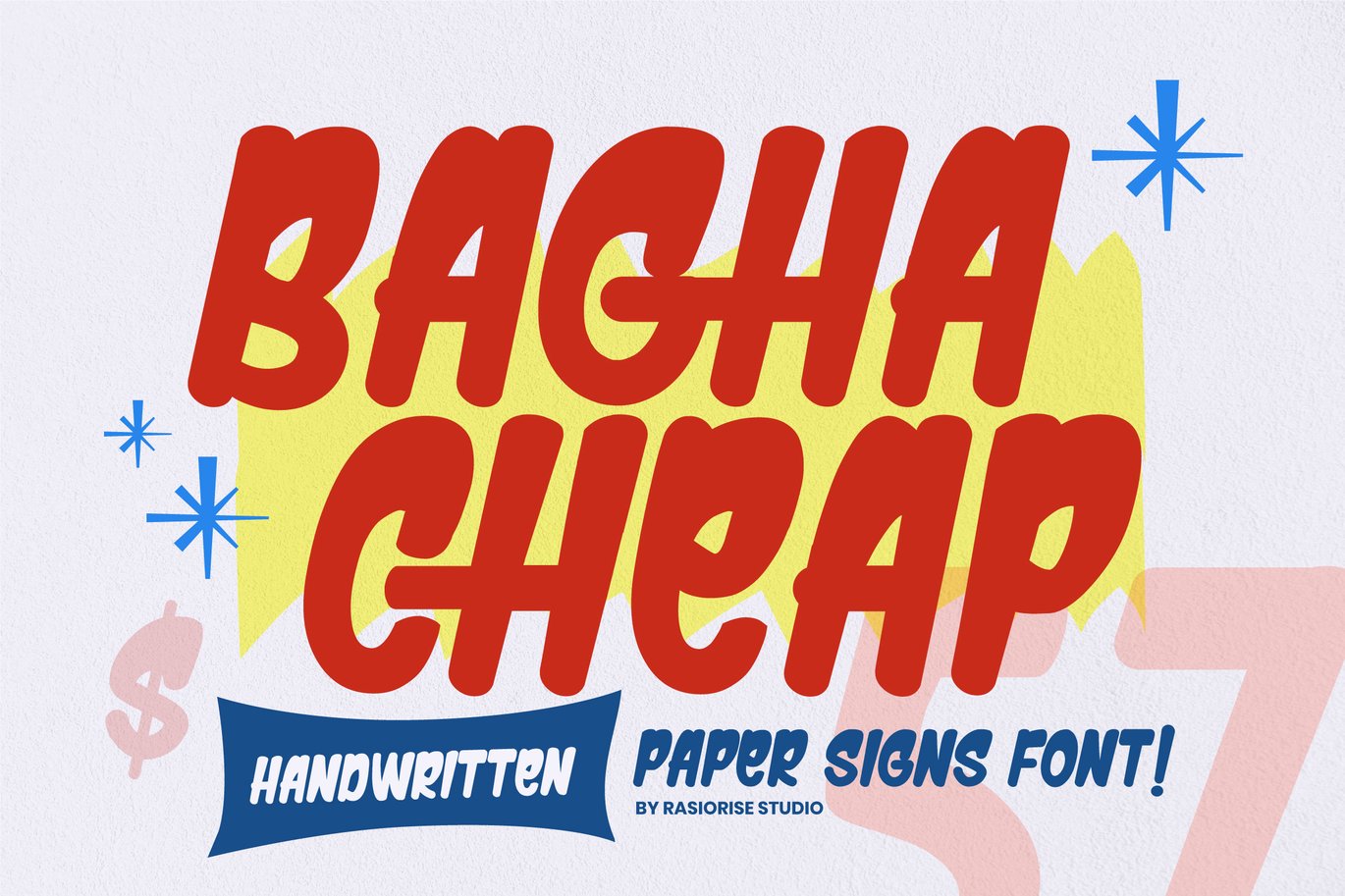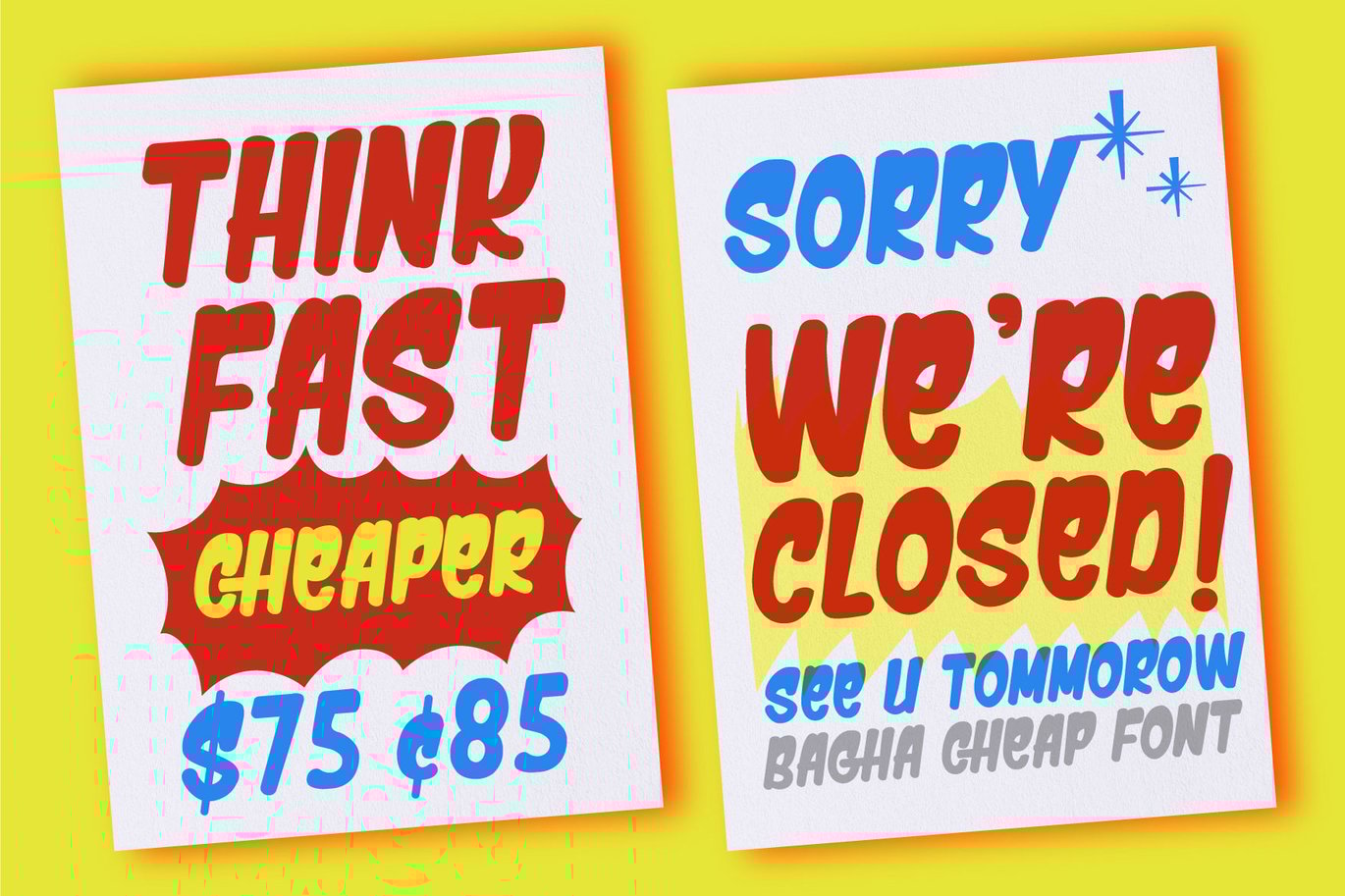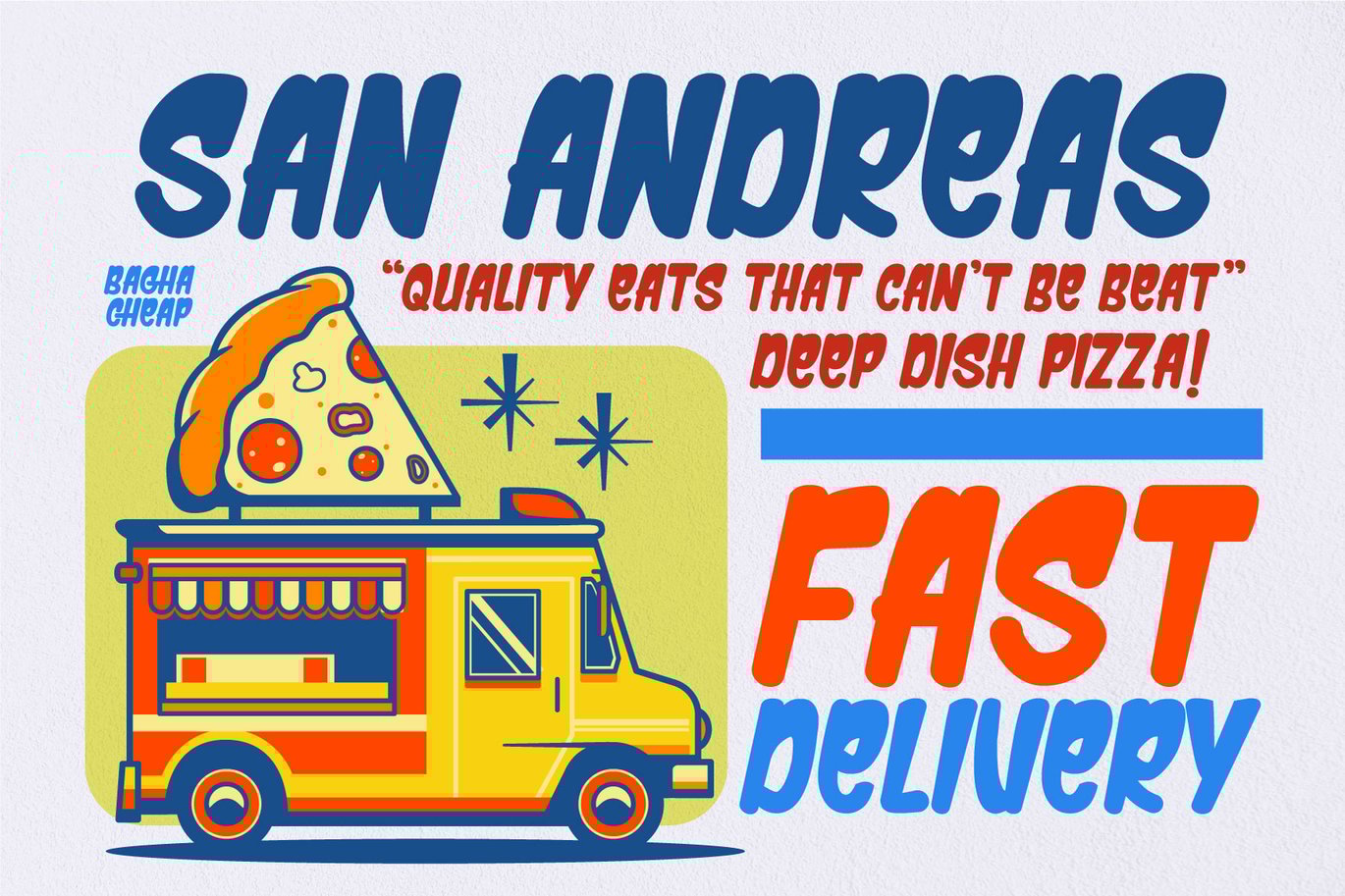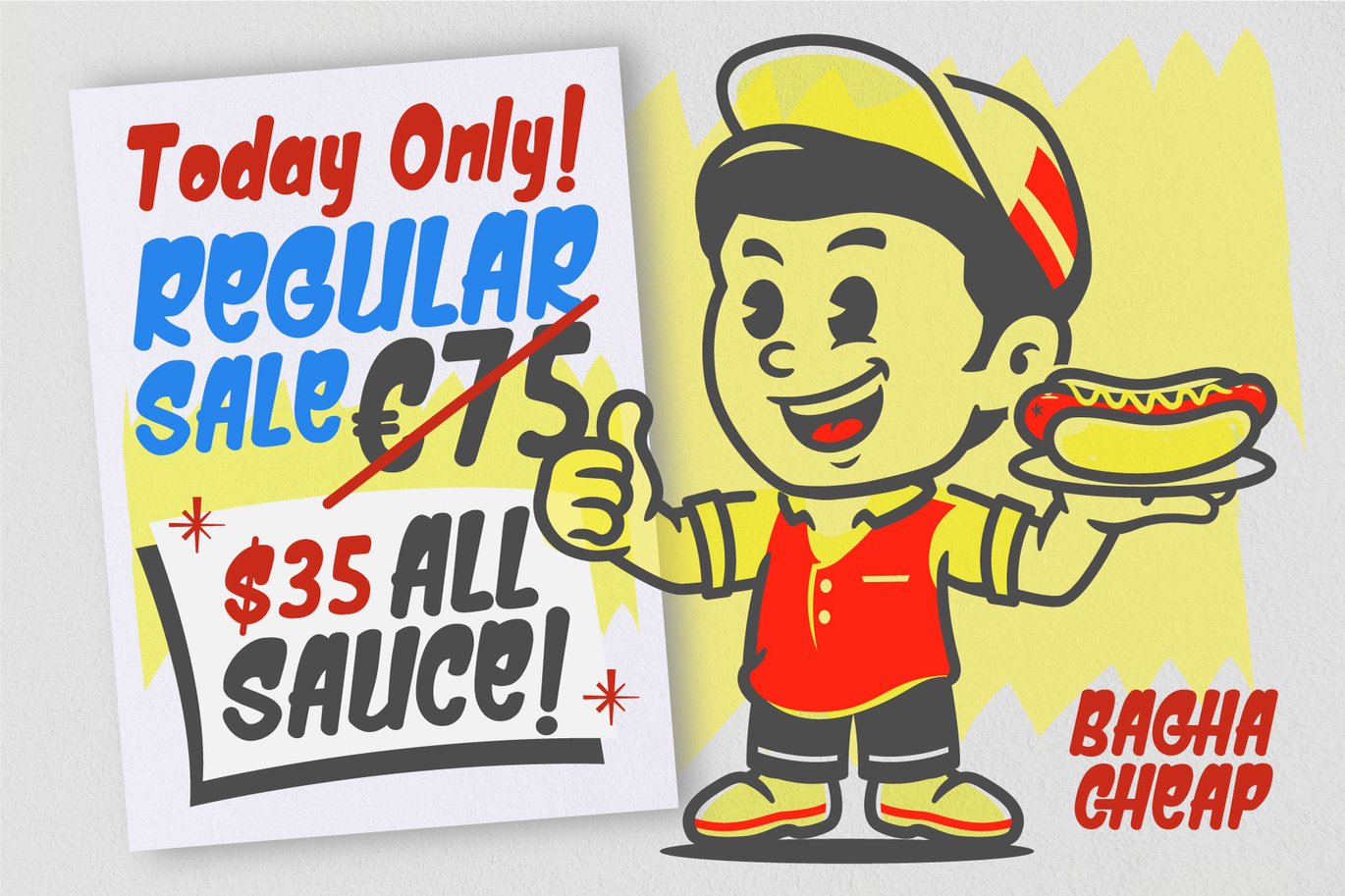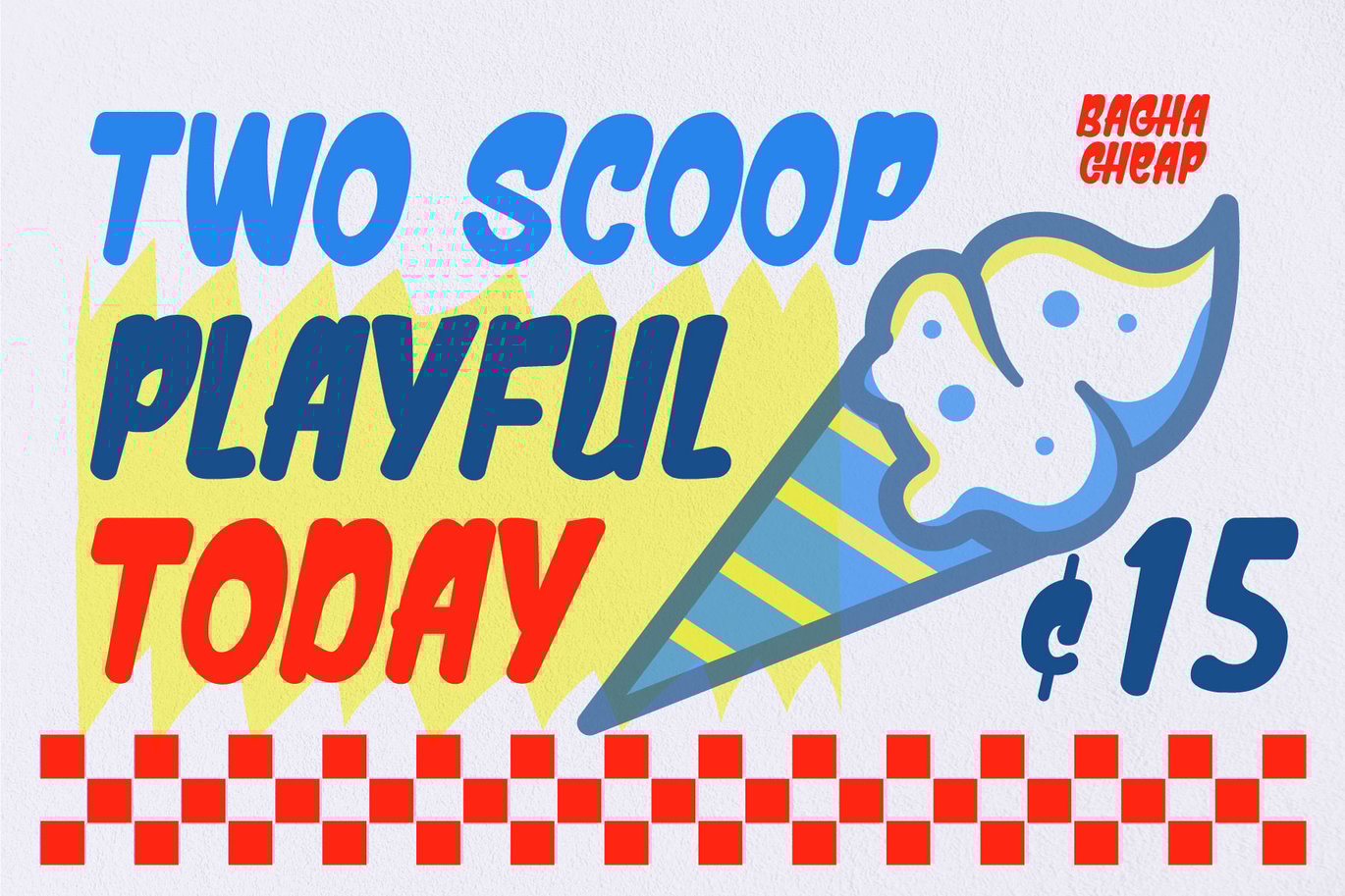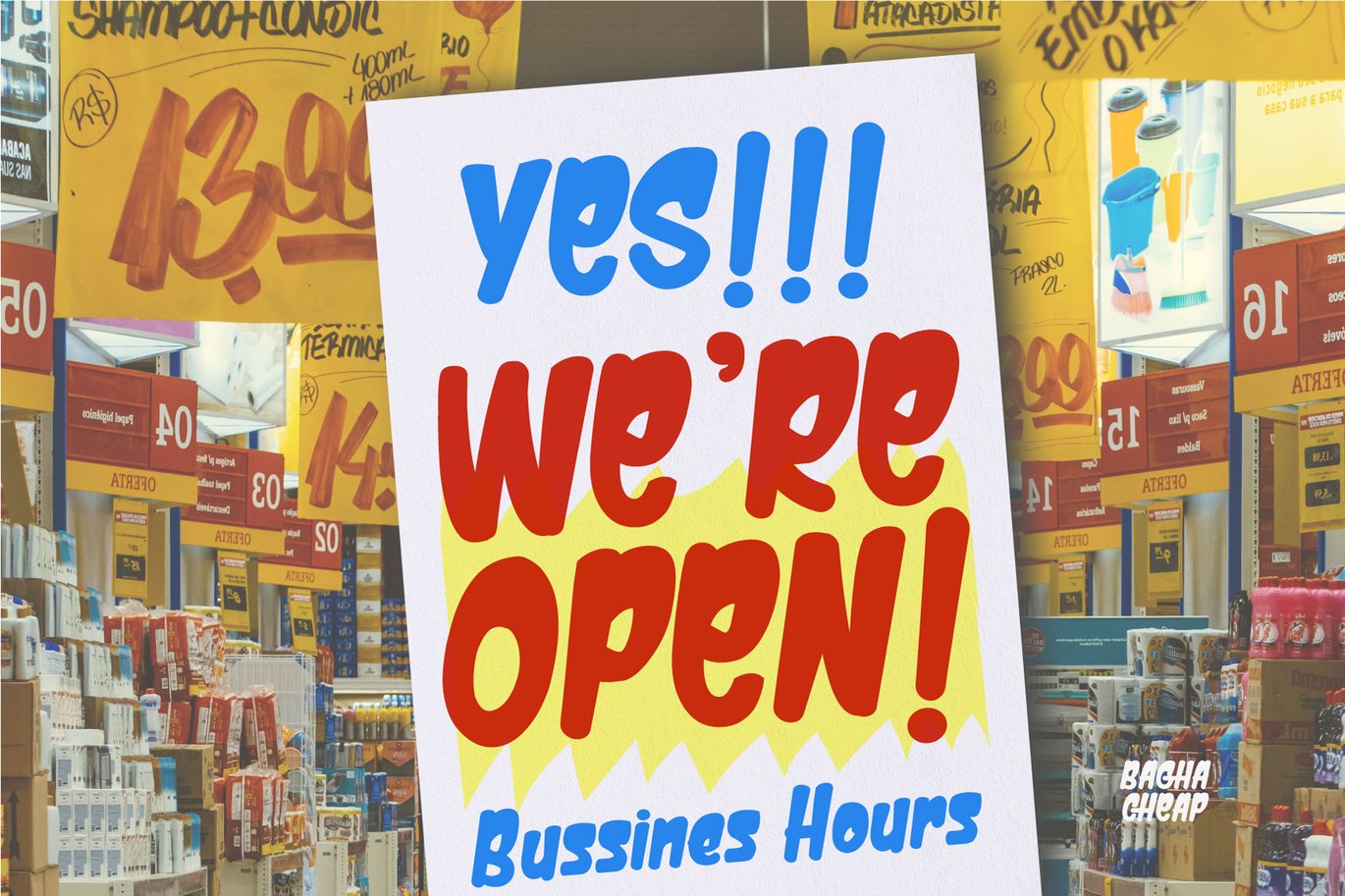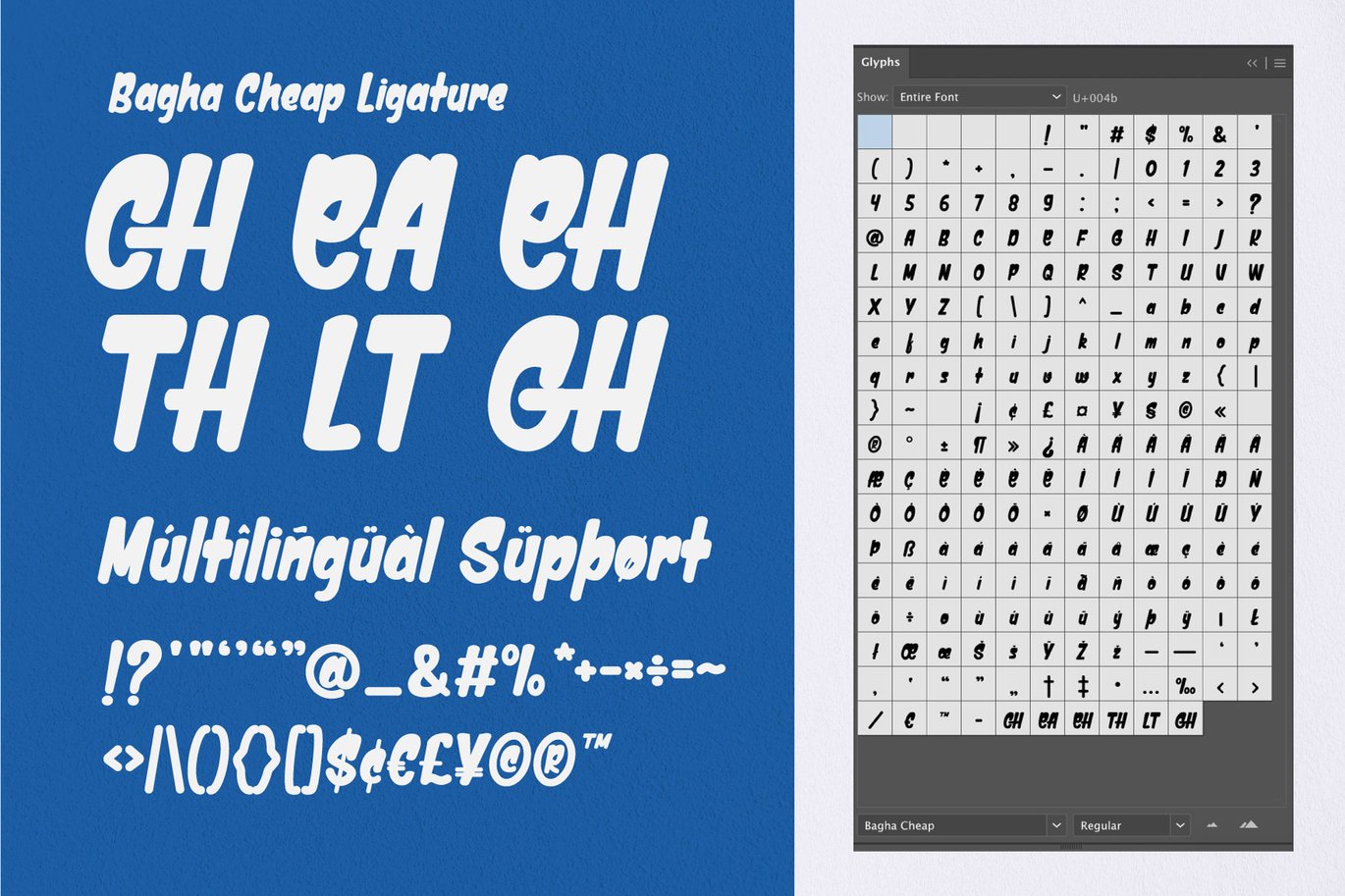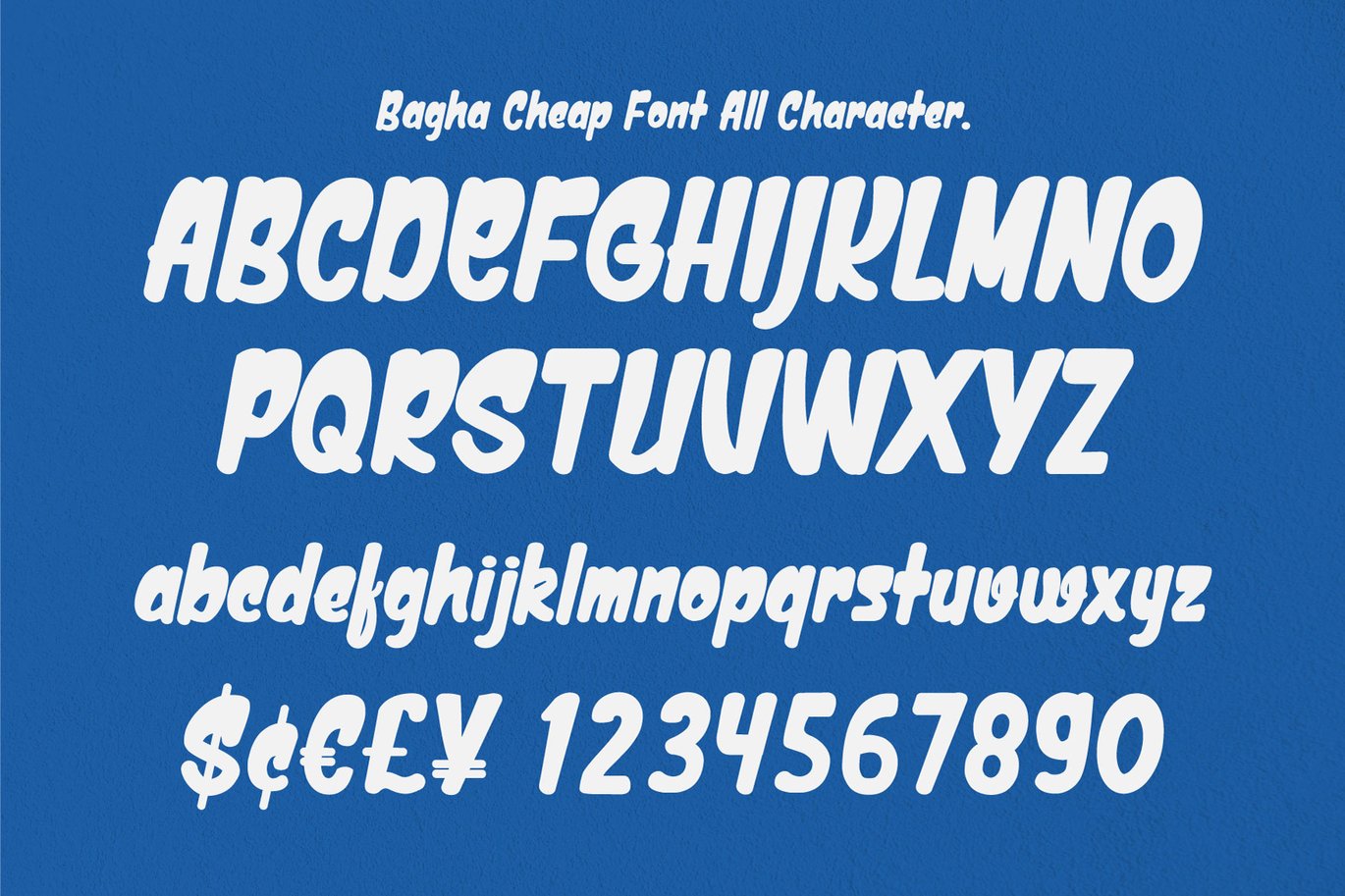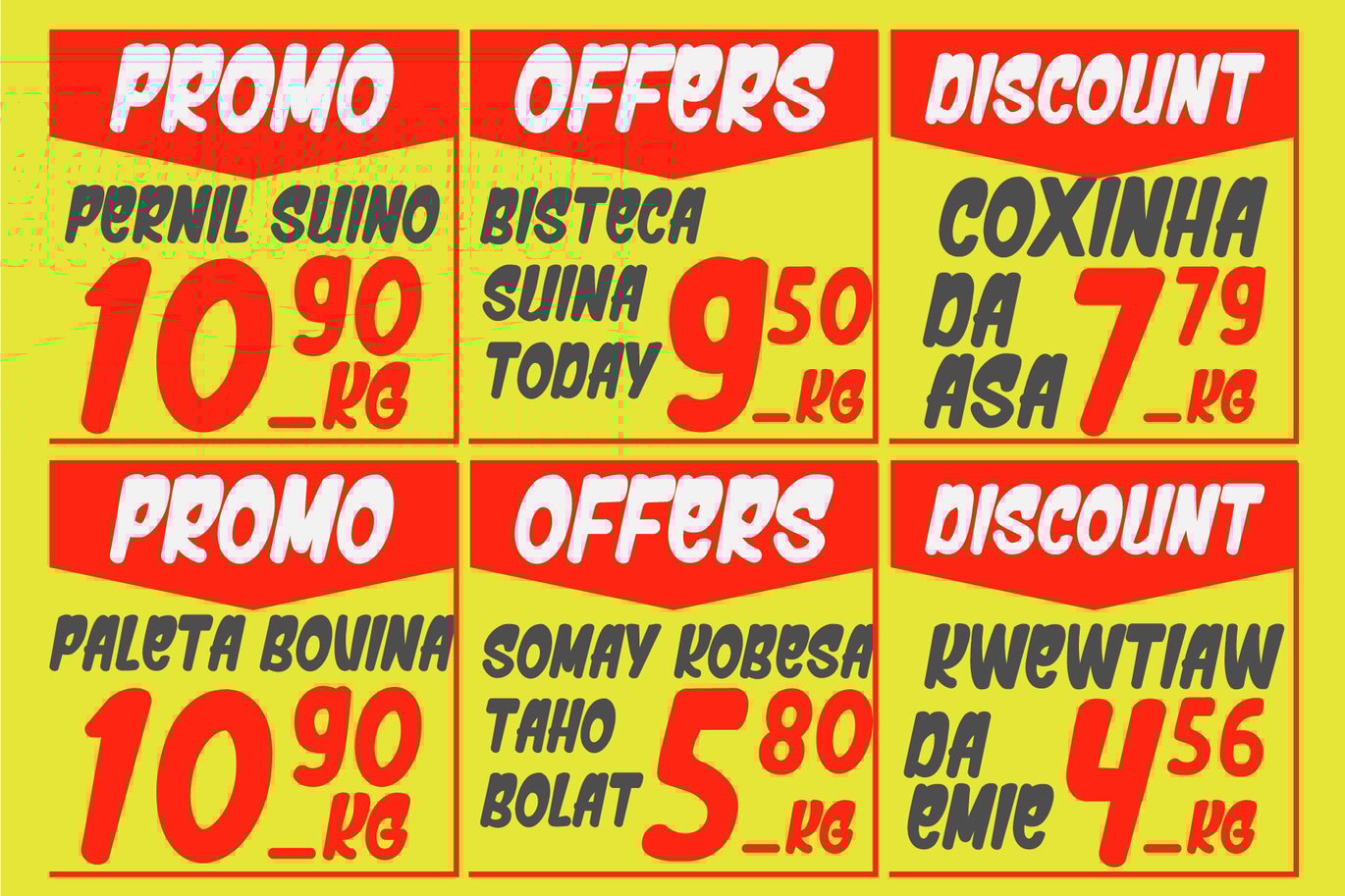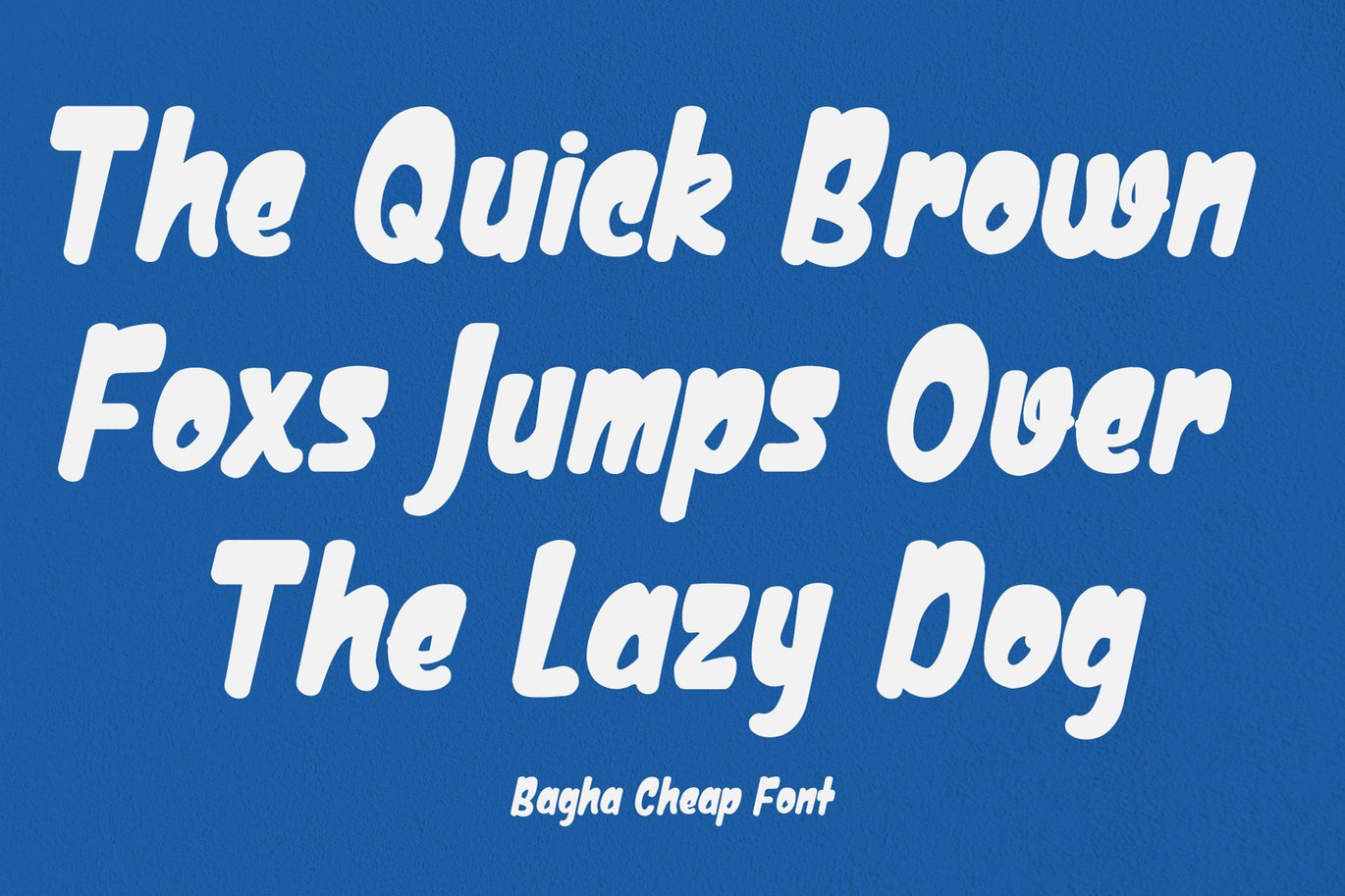
Bagha Cheap – Handwritten Paper Signs Font
Introducing Bagha Cheap – Handwritten Paper Signs Font
Bagha Cheap has been released for those of you who are looking for a Handletter Paper Signs Font for product info or price information.
A Classic handwritten font that combines the freestyle and bold. This font is inspired by Signs Poster Product and Price information in market . With easy-to-read character font for your project, also you can easily create a great and stand-out typography and number fot headline or a price info. Unleash your creativity with Bagha Cheap Font.
Bagha Cheap Font is perfect for Poster, Price Info, Logotype, Book Cover, Gift Cards, Greeting Cards, Packaging Labels, Magazines, or any type of advertising purpose.